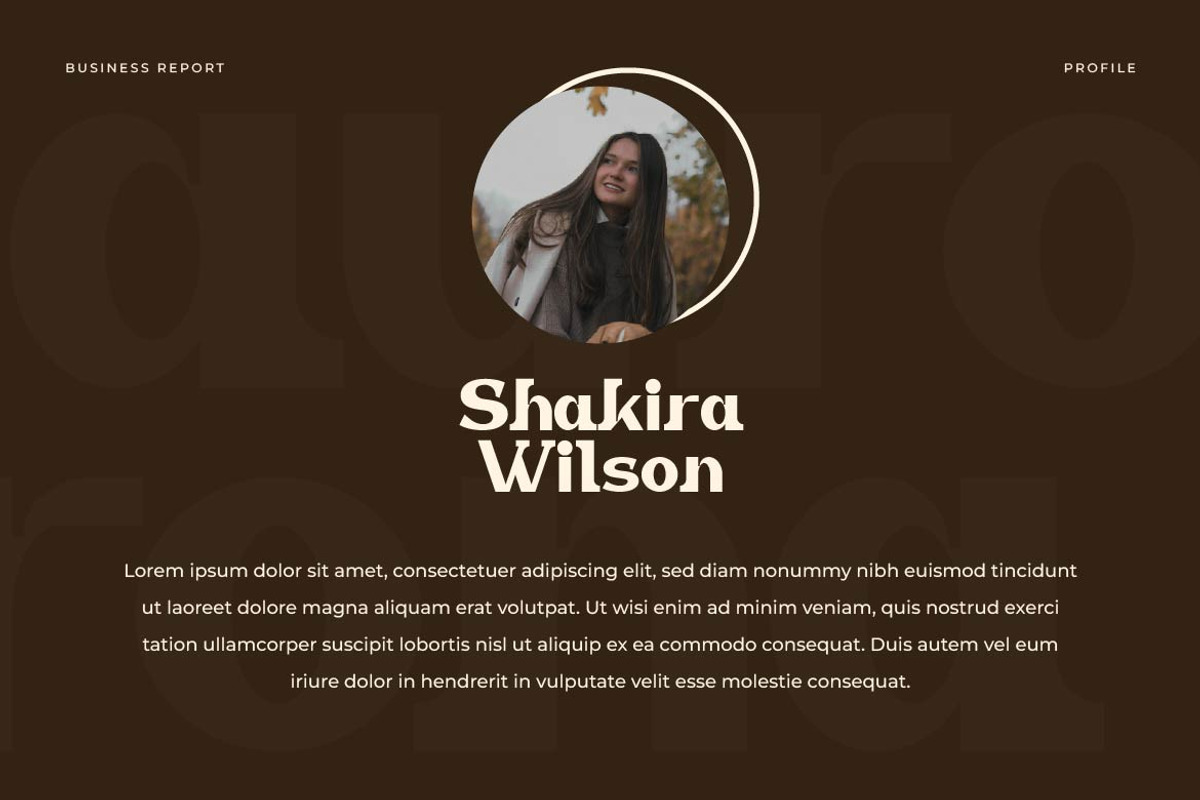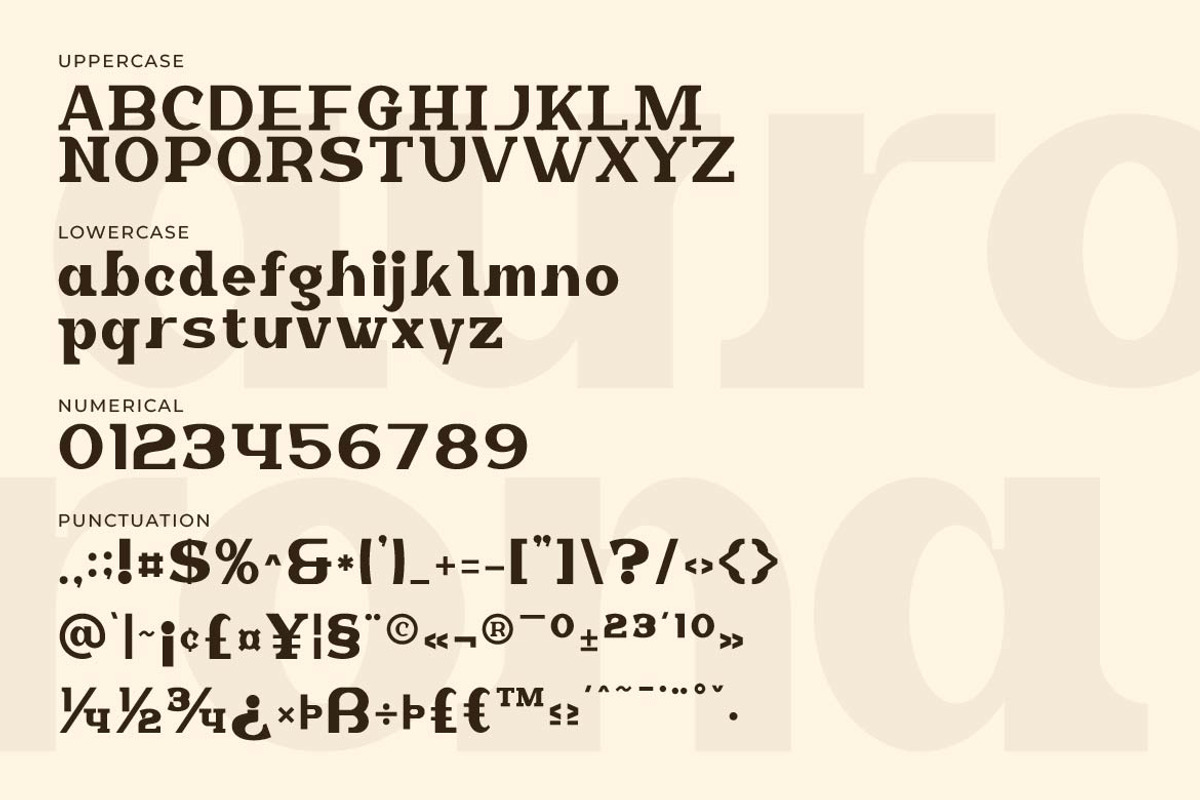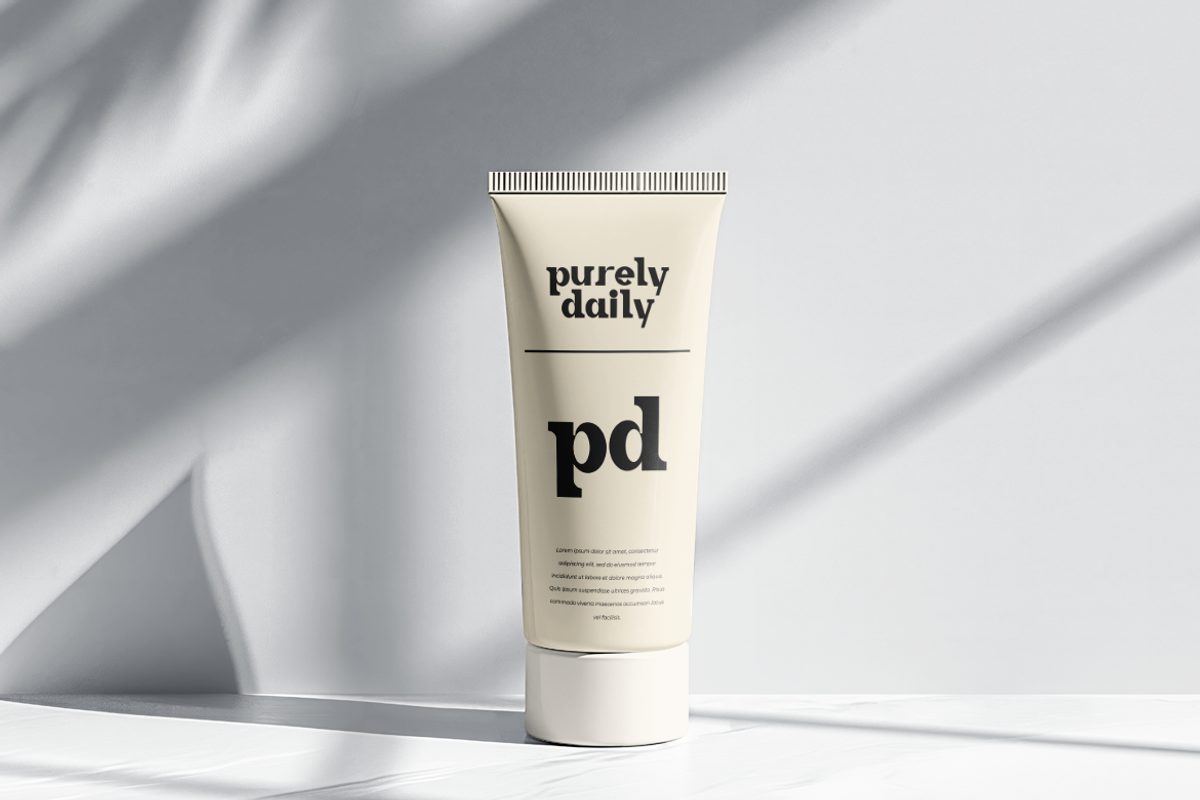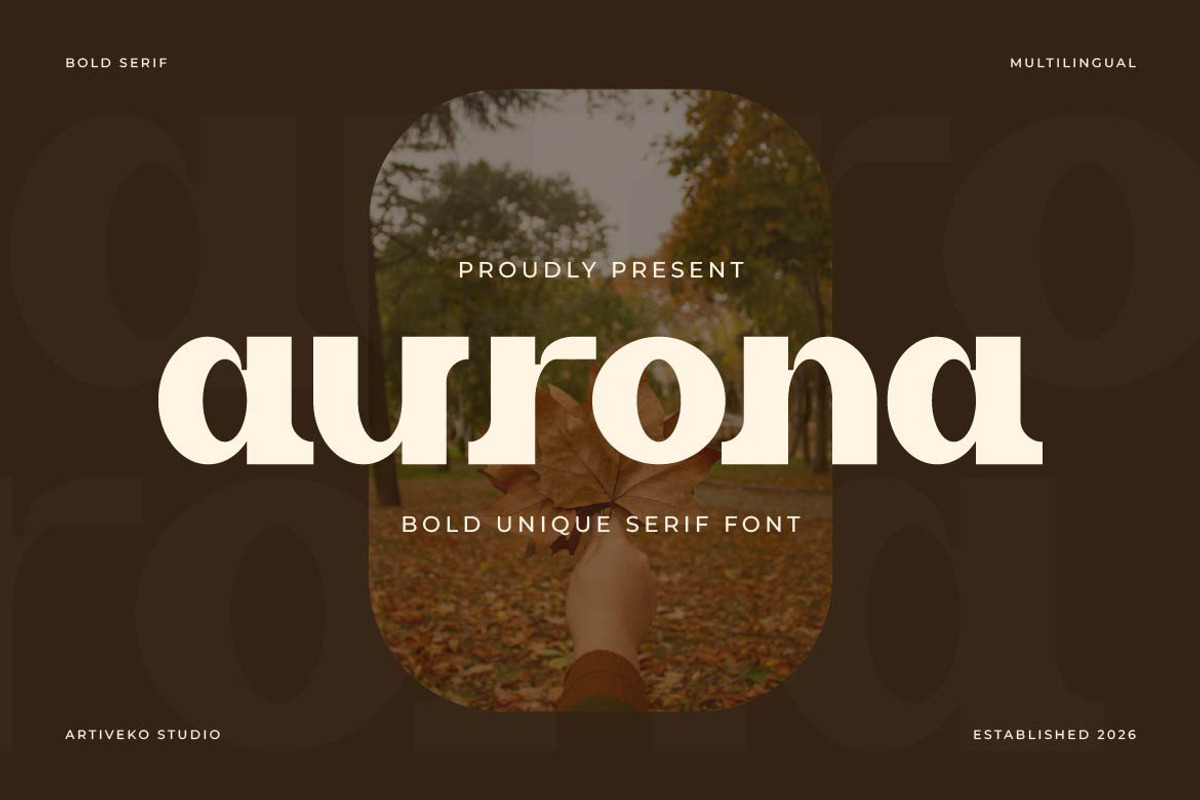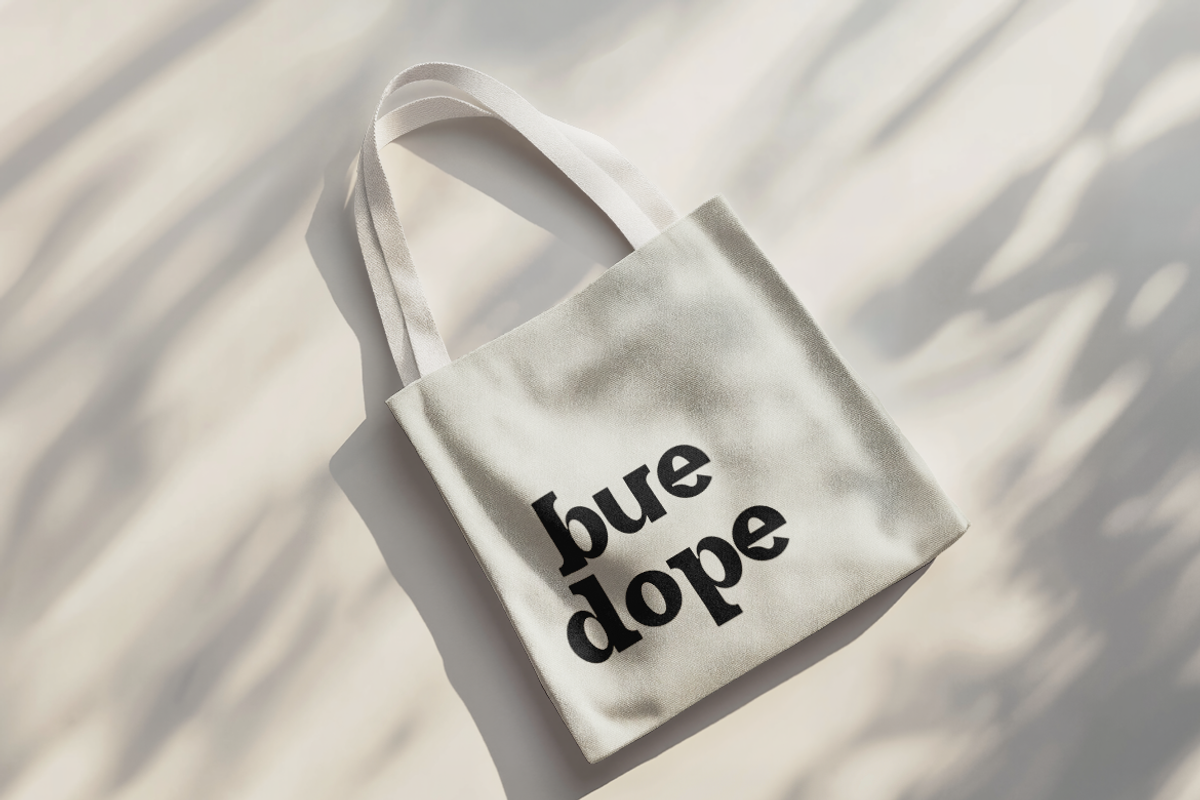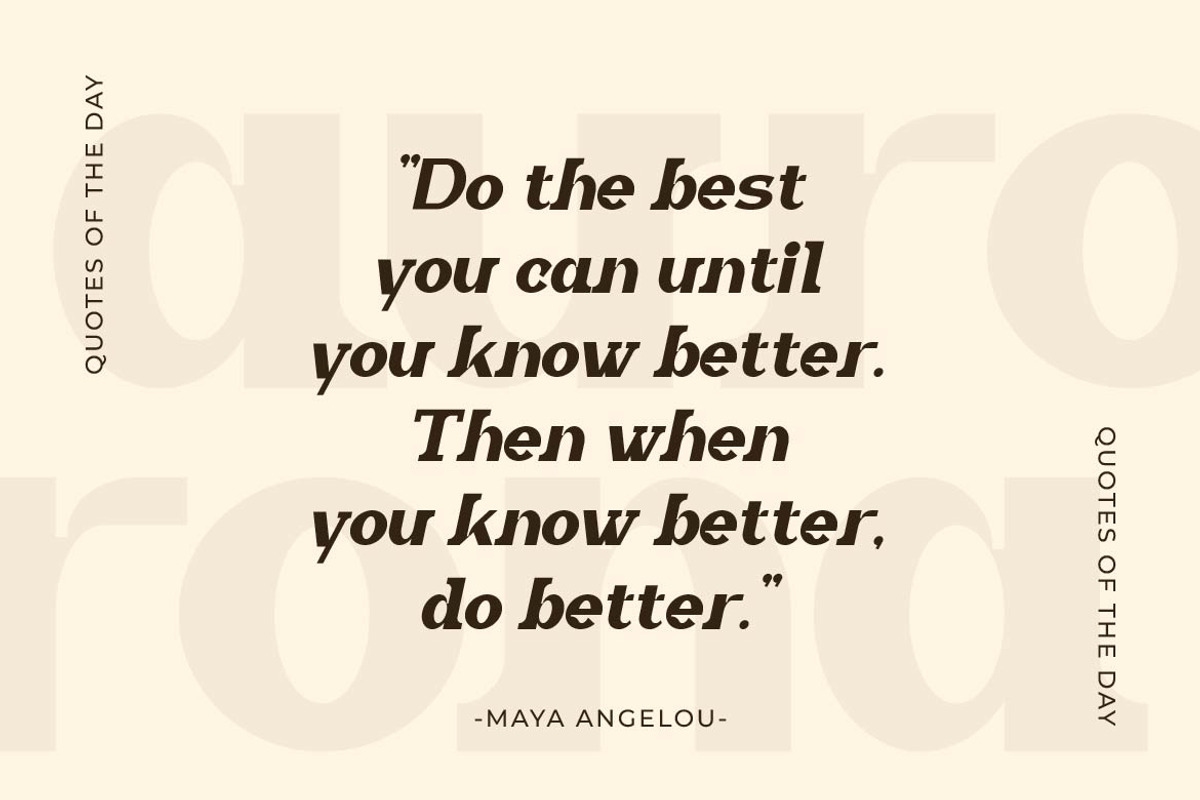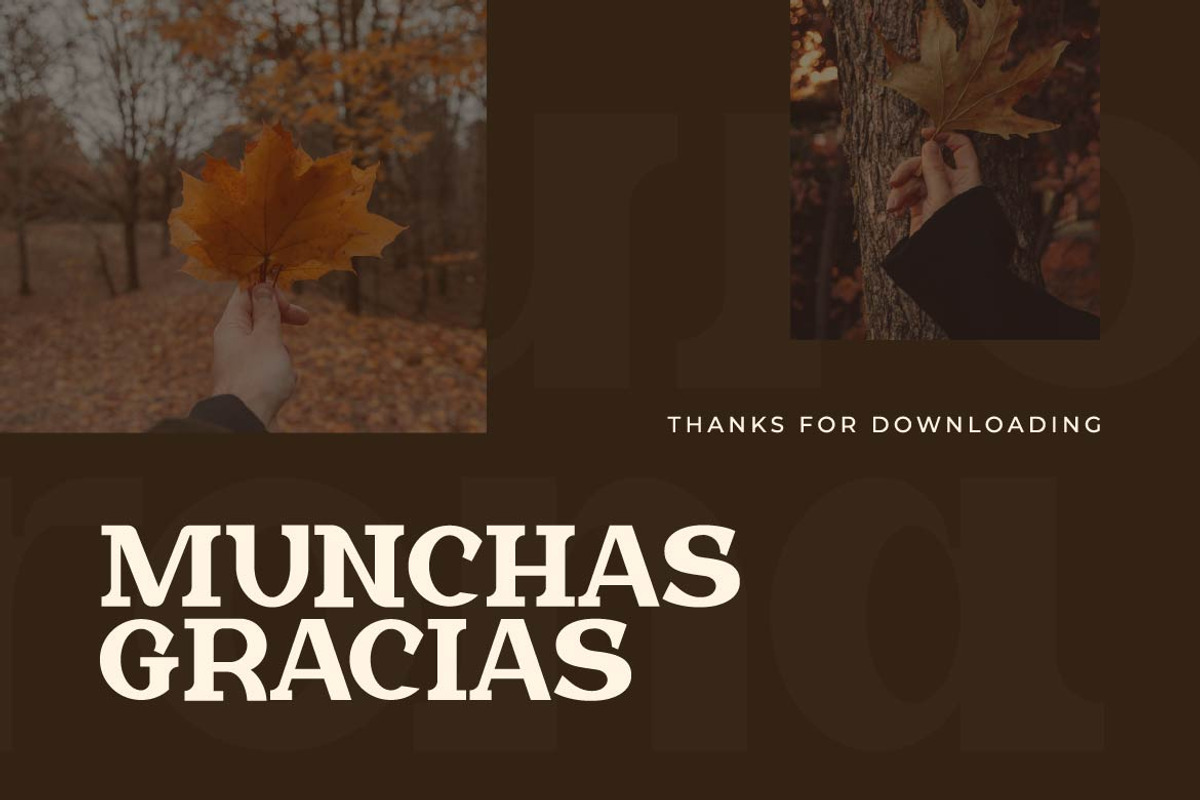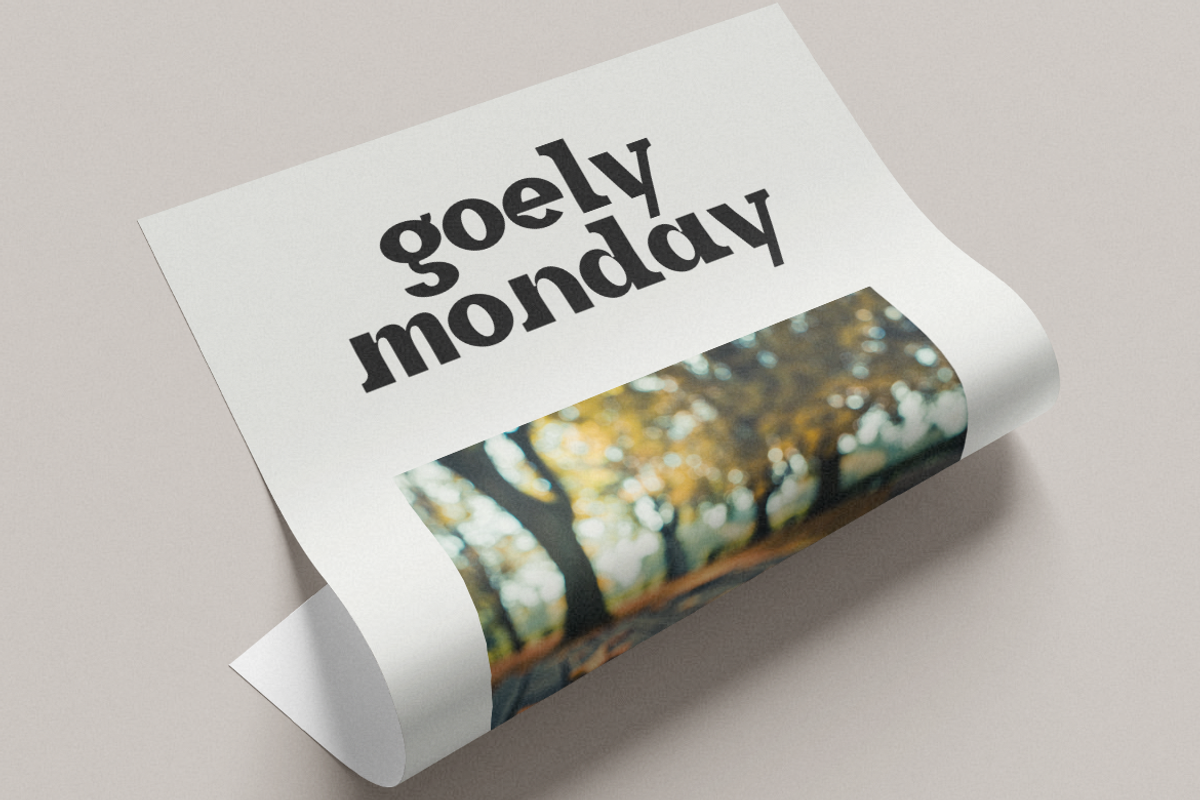
Aurona – Bold Creative Serif
Some brands whisper. Others leave a lasting impression.
Aurona is a bold creative serif typeface designed for brands that want to express confidence with sophistication. Combining powerful serif structures with refined contemporary details, Aurona creates typography that feels expressive, premium, and unmistakably modern.
Crafted for luxury branding, fashion labels, editorial design, premium packaging, boutique businesses, cosmetics, hospitality, and creative agencies, Aurona delivers a striking visual identity without sacrificing elegance. Its bold proportions provide commanding headlines, while its carefully sculpted serif details bring warmth, character, and timeless appeal.
Aurona is built for designers who want more than a beautiful font—it’s made for creating memorable brand experiences. From luxury logos and magazine covers to product packaging and social media campaigns, Aurona adapts effortlessly across print and digital platforms with a distinctive, high-end presence.
Rather than following temporary design trends, Aurona embraces enduring typography with a modern creative spirit—making it a reliable choice for brands that aim to stay relevant for years.
Aurona isn't just a typeface—it's a bold signature for brands that believe creativity deserves elegance.